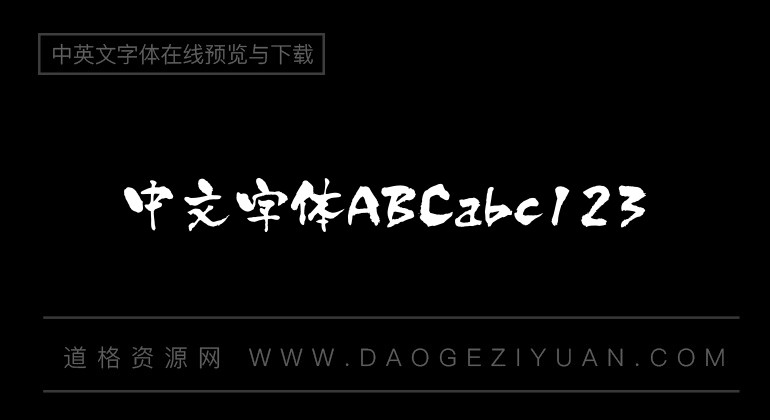
HOT-京円かな太 Std R font is a Japanese Kanji font developed by HOTFONT Font Studio. It has distinctive Chinese character style characteristics and shows Japanese cultural characteristics. The font is designed in Taixiu regular script, with rounded strokes, rigorous structure, and great agility, giving people a gentle and lively feeling, which is very suitable for text design on the screen.Content introduction
HOT-冯円かな太 Std R is a very good handwriting art font, with a good visual sense, suitable for cultural propaganda design, commercial brand advertising and product packaging design and personalized text typesetting and other more scenes.